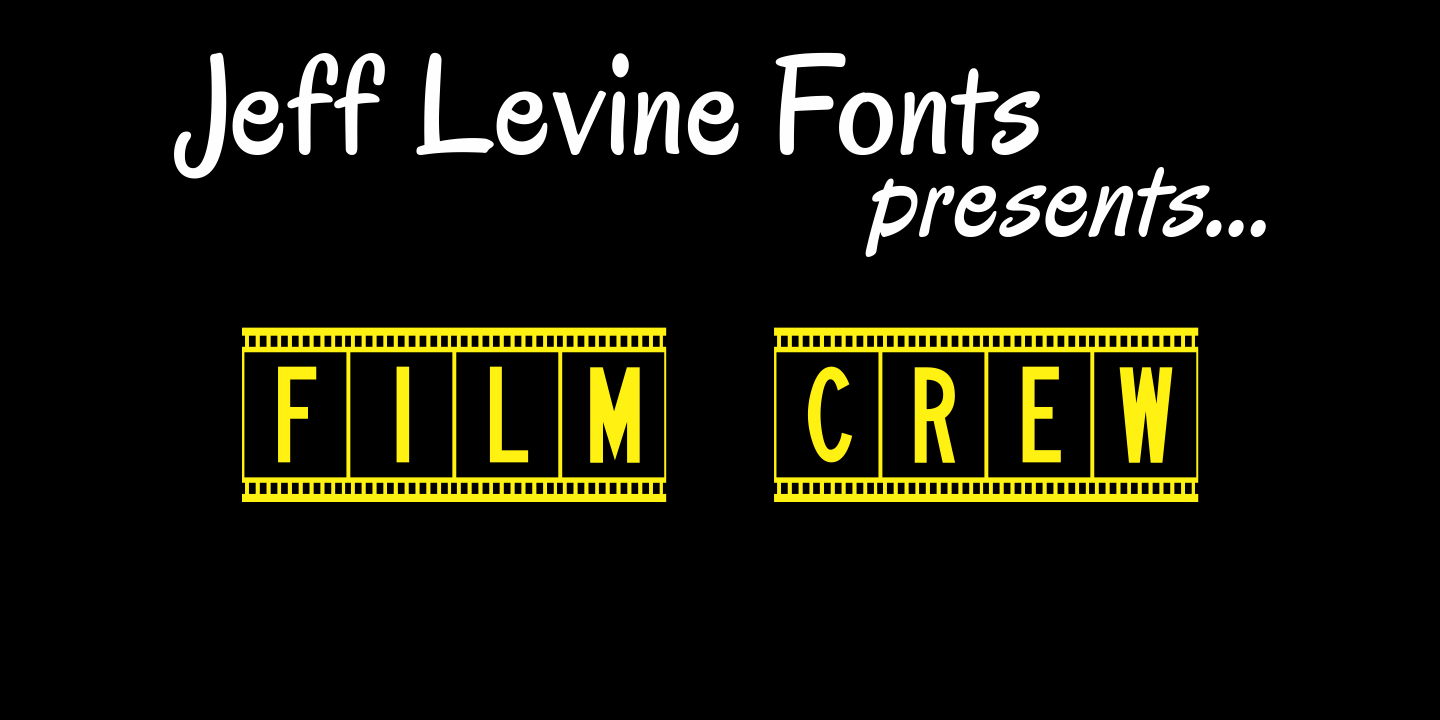
Film Crew
It's not a new idea, but it's always a fun one... a typeface comprised of 35mm film frames. Film Crew JNL is Jeff Levine's version, utilizing his Koehler Sans JNL as the lettering inside the frames. The lesser and greater keys have solid black frames for end caps or word spacing, and there's an alternate pair of frames with clear centers on the brace keys.
Film Crew JNL Regular by Jeff Levine Fonts